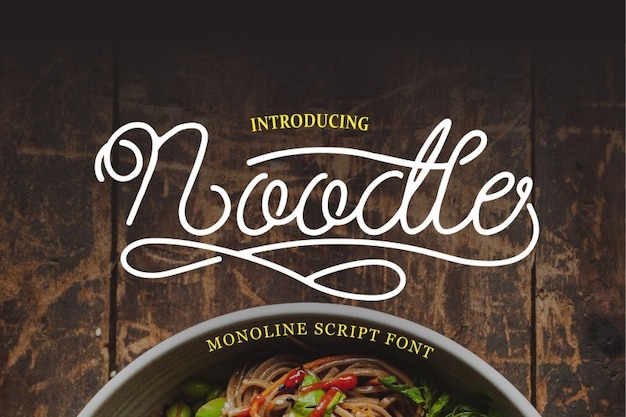
Noodle Font
Noodle font serves up elegant calligraphy with a twist of whimsy. Its graceful curves and monoline strokes give your words a sophisticated flavor. Just like a plate of perfectly cooked noodles, it's both simple and satisfying, making it an ideal choice for projects that want to add a touch of elegance without being too formal.